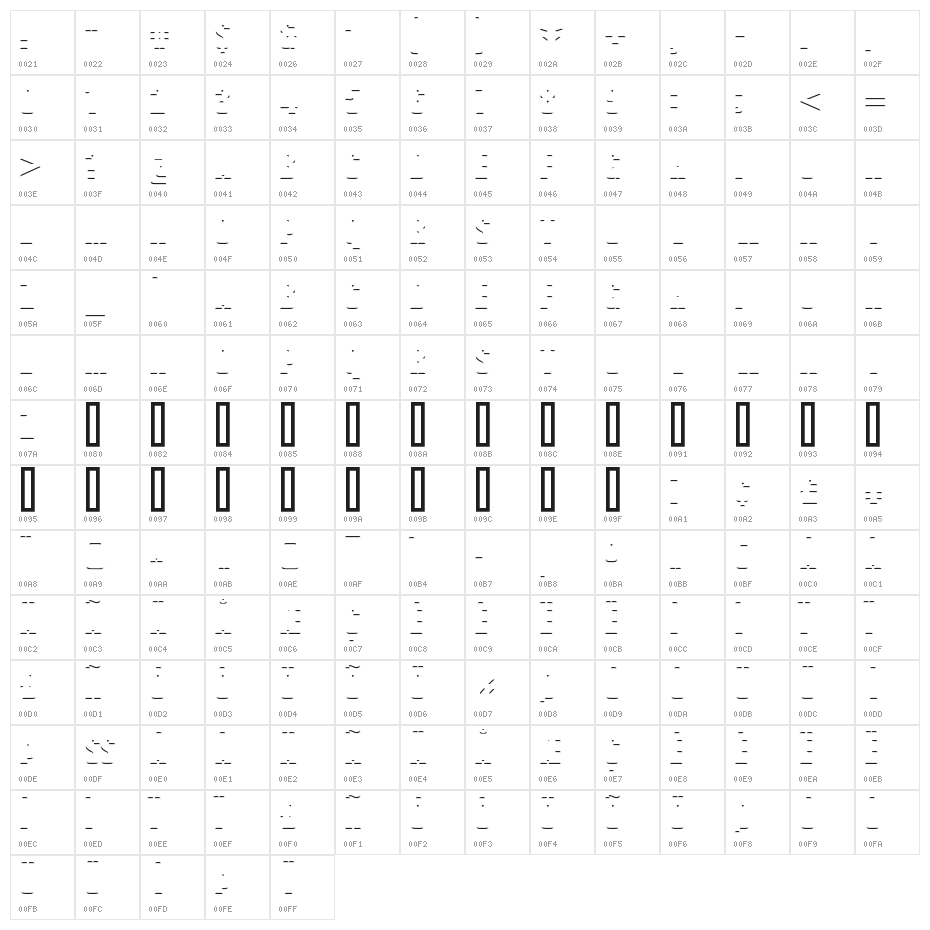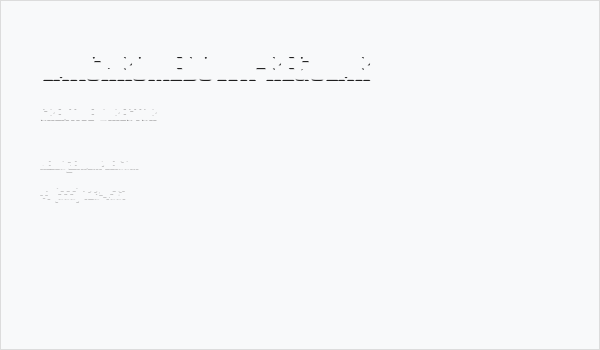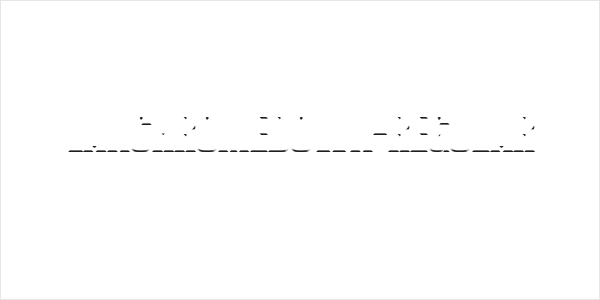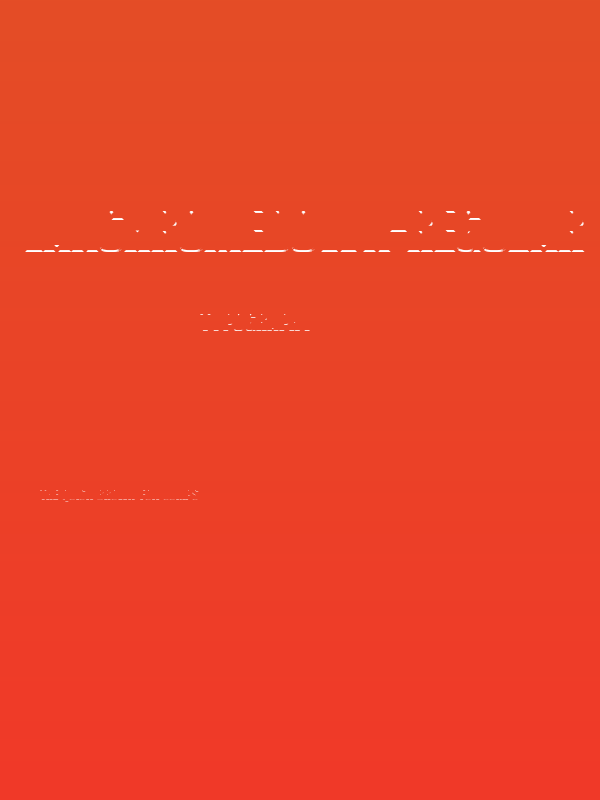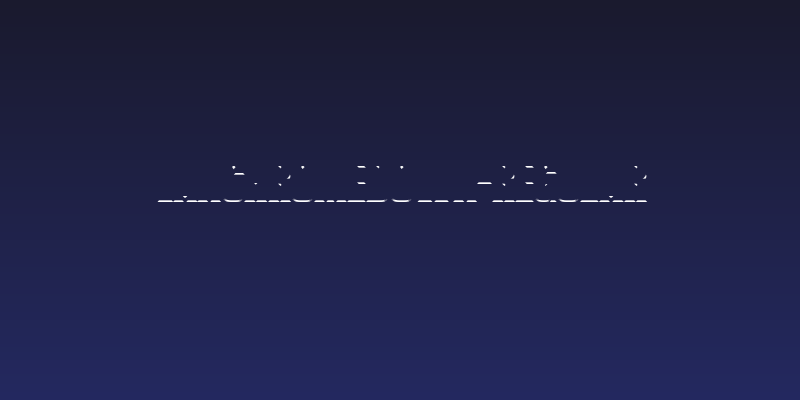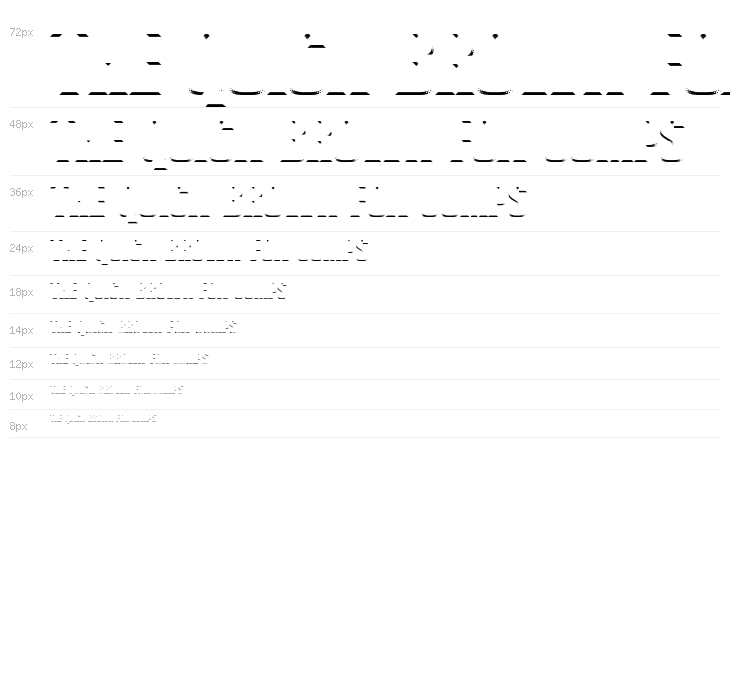
VanchromeDown-Regular Font
VanchromeDown-Regular Description
This font features a unique and modern design with a futuristic aesthetic. The characters are composed of segmented lines and geometric shapes, giving it a digital and tech-inspired look. The uppercase and lowercase letters maintain a consistent style, with sharp angles and clean lines. Numbers and special characters are also designed in a similar fashion, ensuring uniformity across the font. The overall appearance is sleek and contemporary, making it suitable for projects that require a cutting-edge and innovative feel.
| Use Case | Logos, Headlines, Digital media |
| Proposed Projects | Ideal for technology branding, digital media, futuristic posters, and innovative product packaging. |